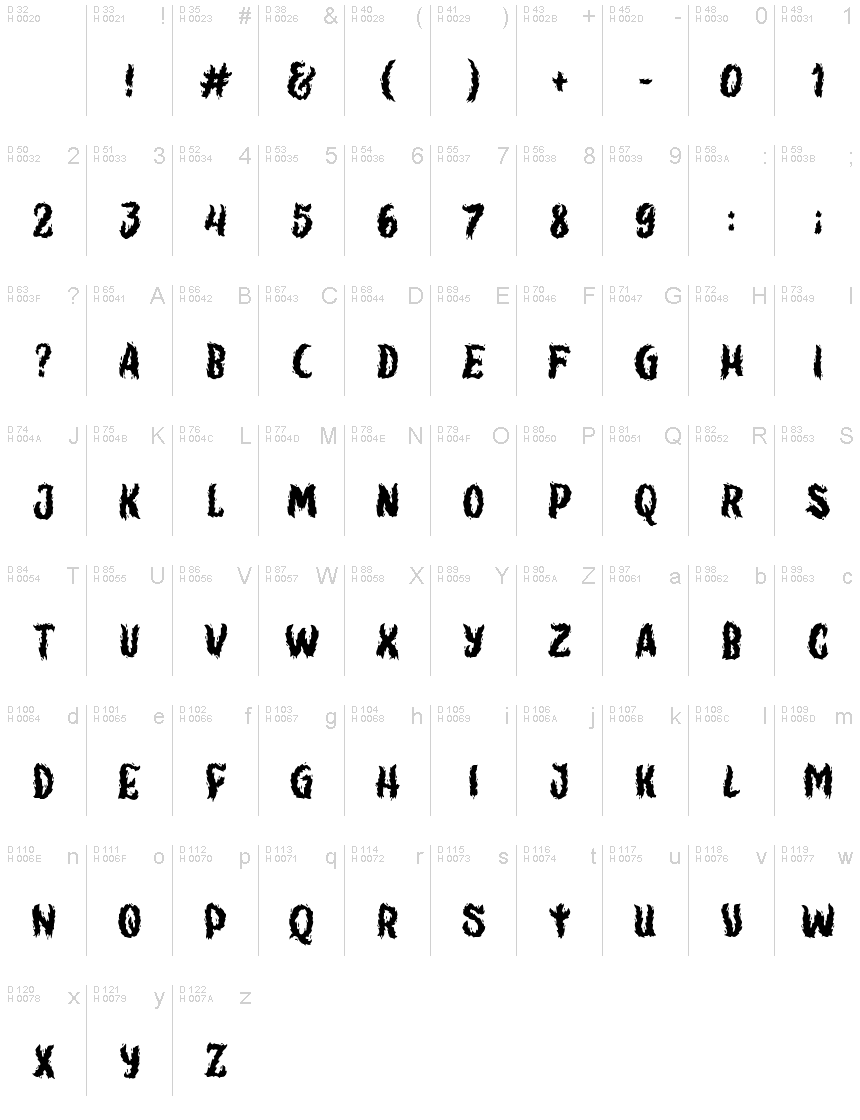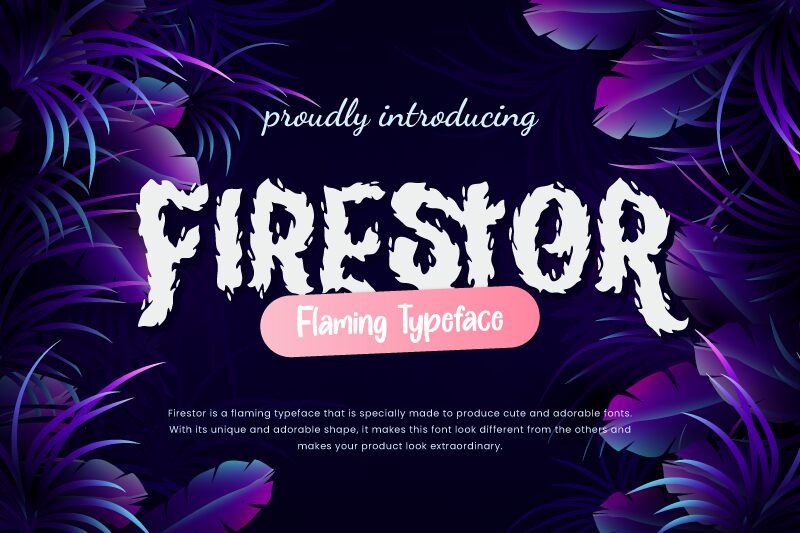
Firestor Regular
Firestor is a bold, semi-condensed display font by Creatype Studio that's sure to ignite your creativity. This decorative typeface is inspired by the element of fire, bringing a fiery energy to any project. With its unique design, Firestor is perfect for branding and packaging in industries such as sports, entertainment and food. Its thick strokes and sharp edges make it ideal for headlines, posters and flyers as well. Whether you're looking to add some heat to your designs or simply want a stand-out typeface, Firestor is the perfect choice for your next project.